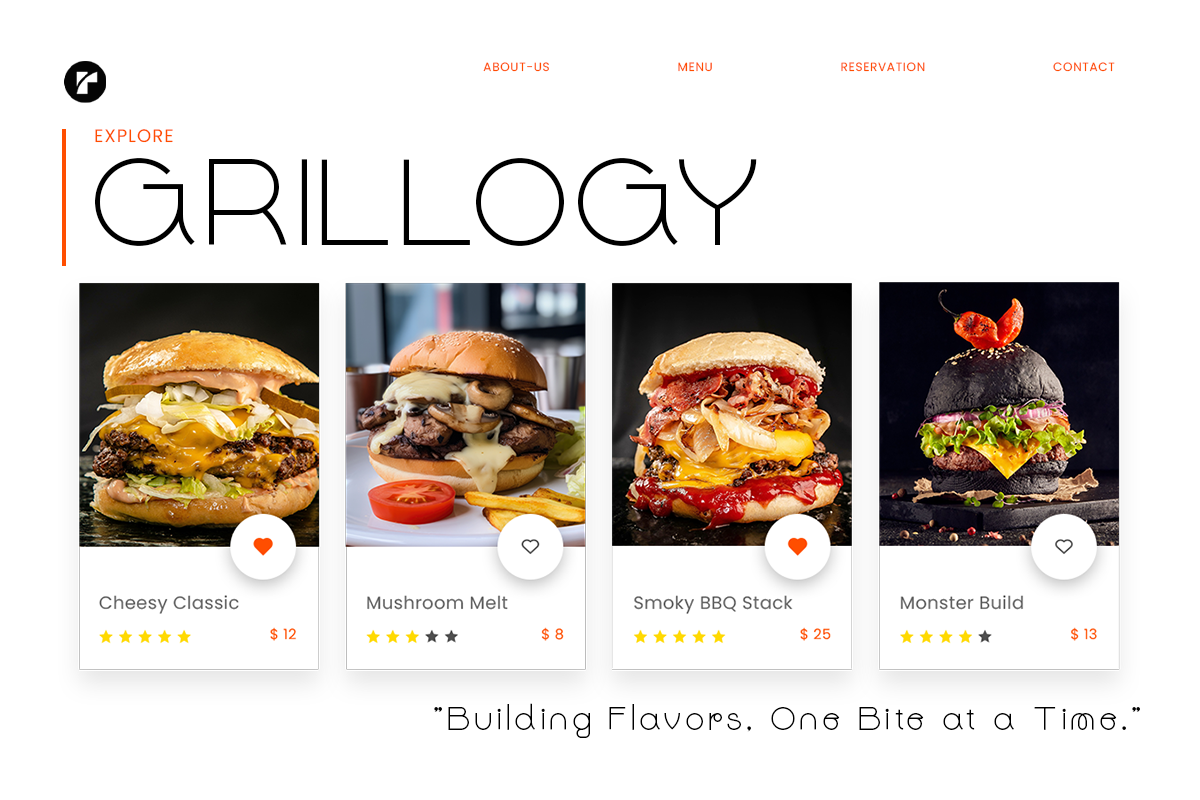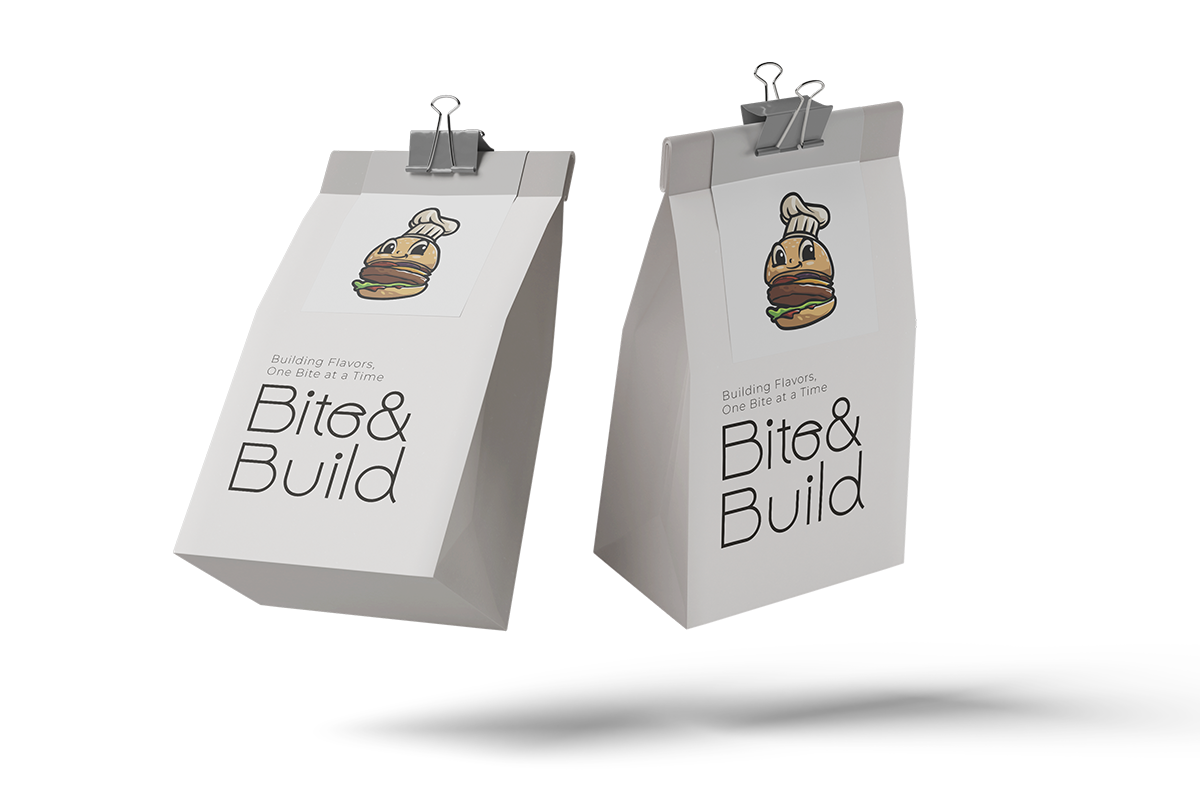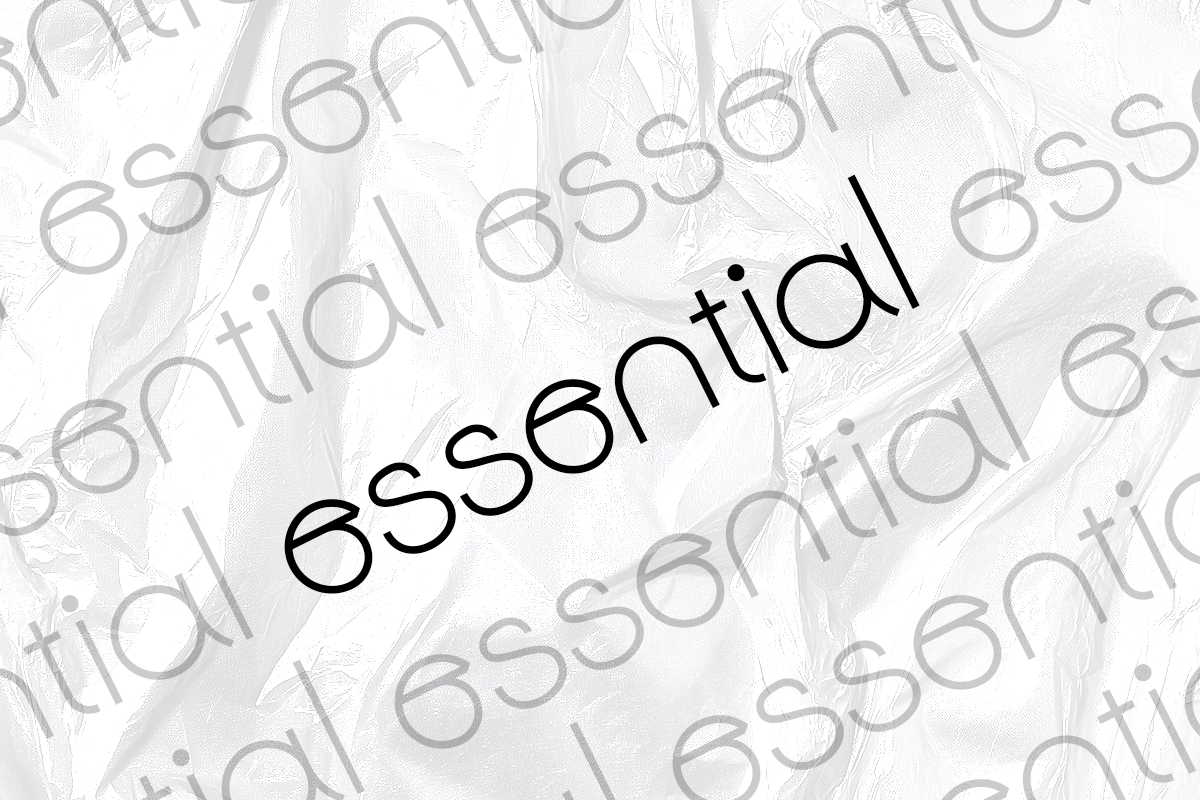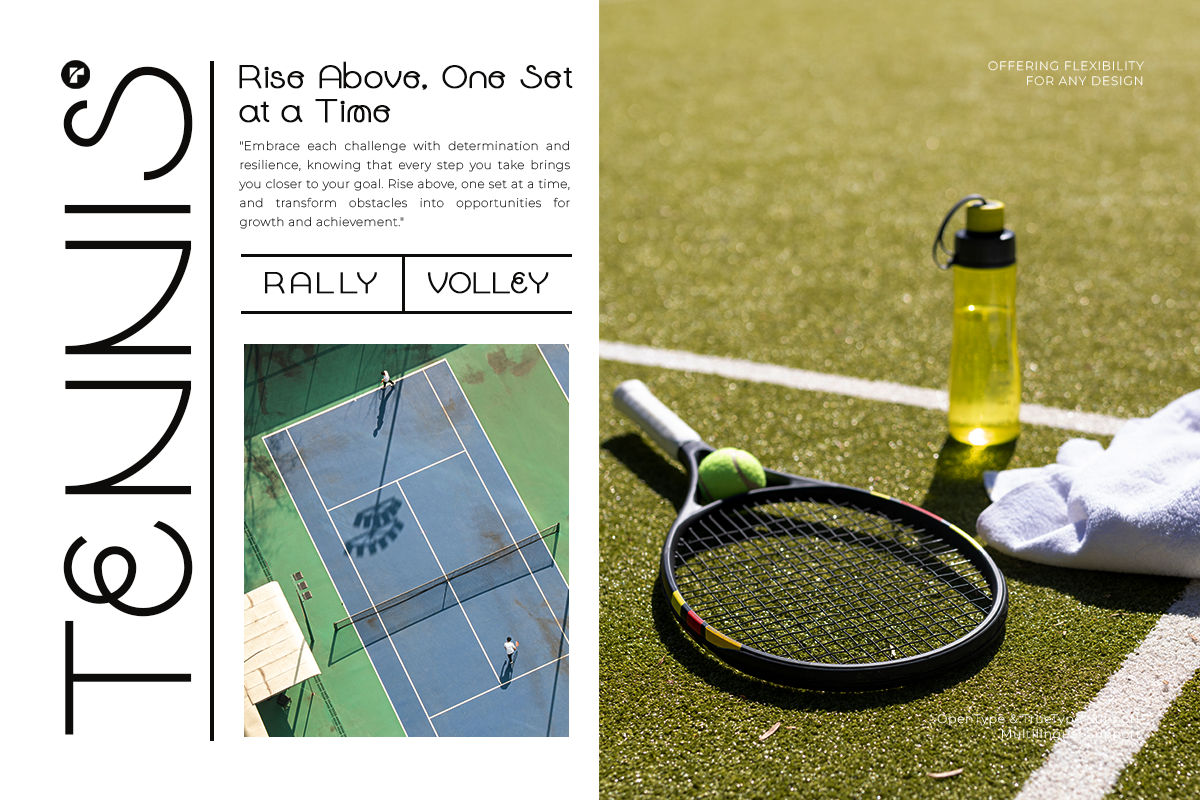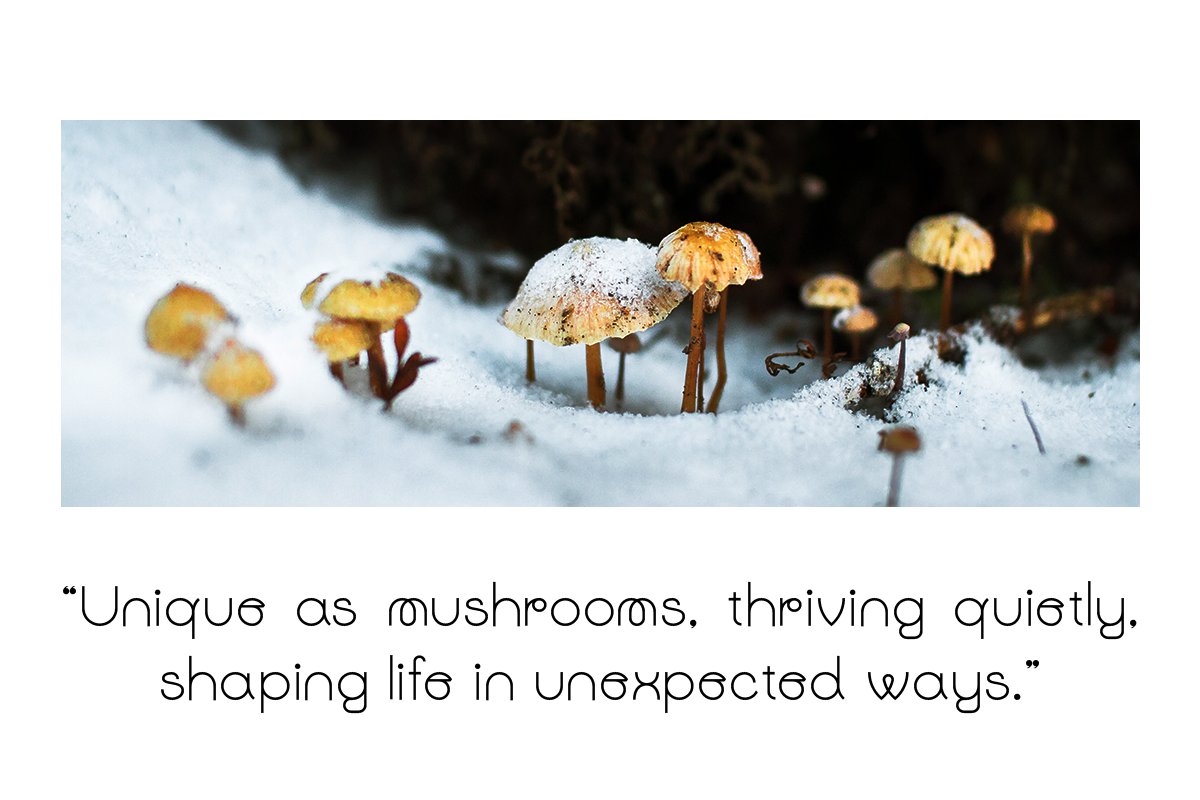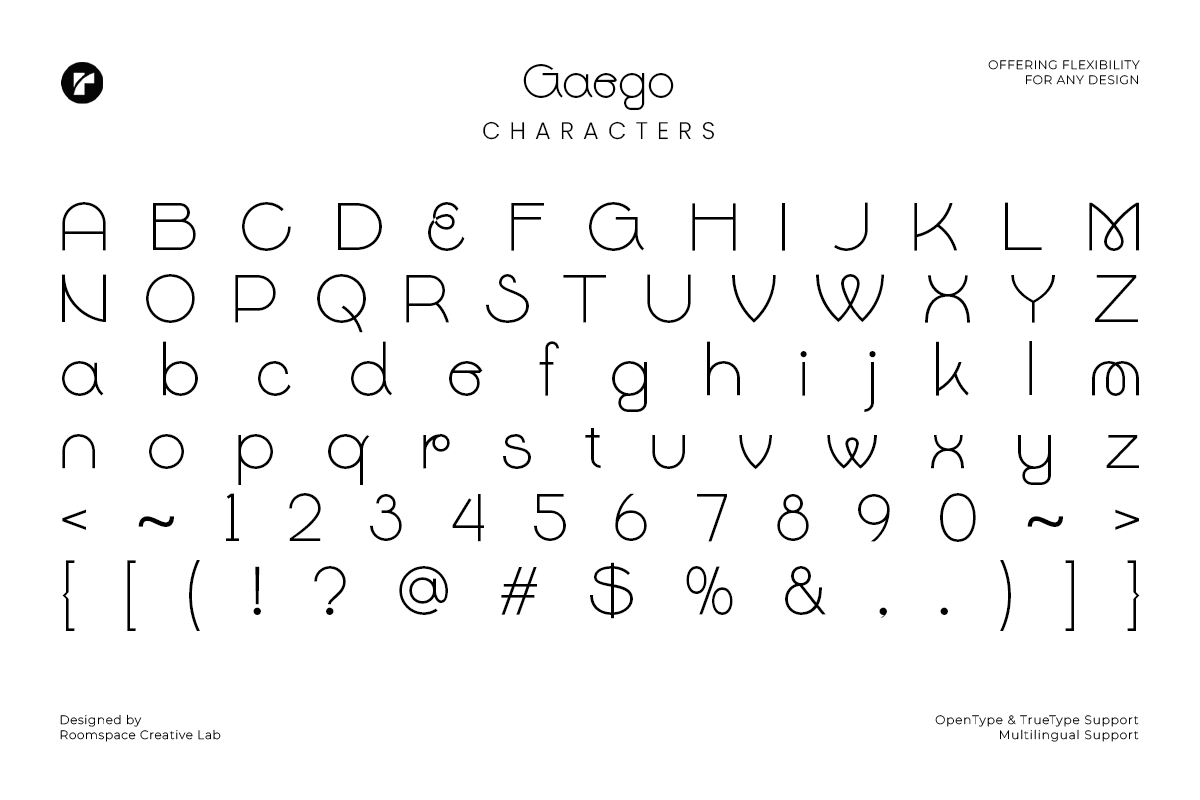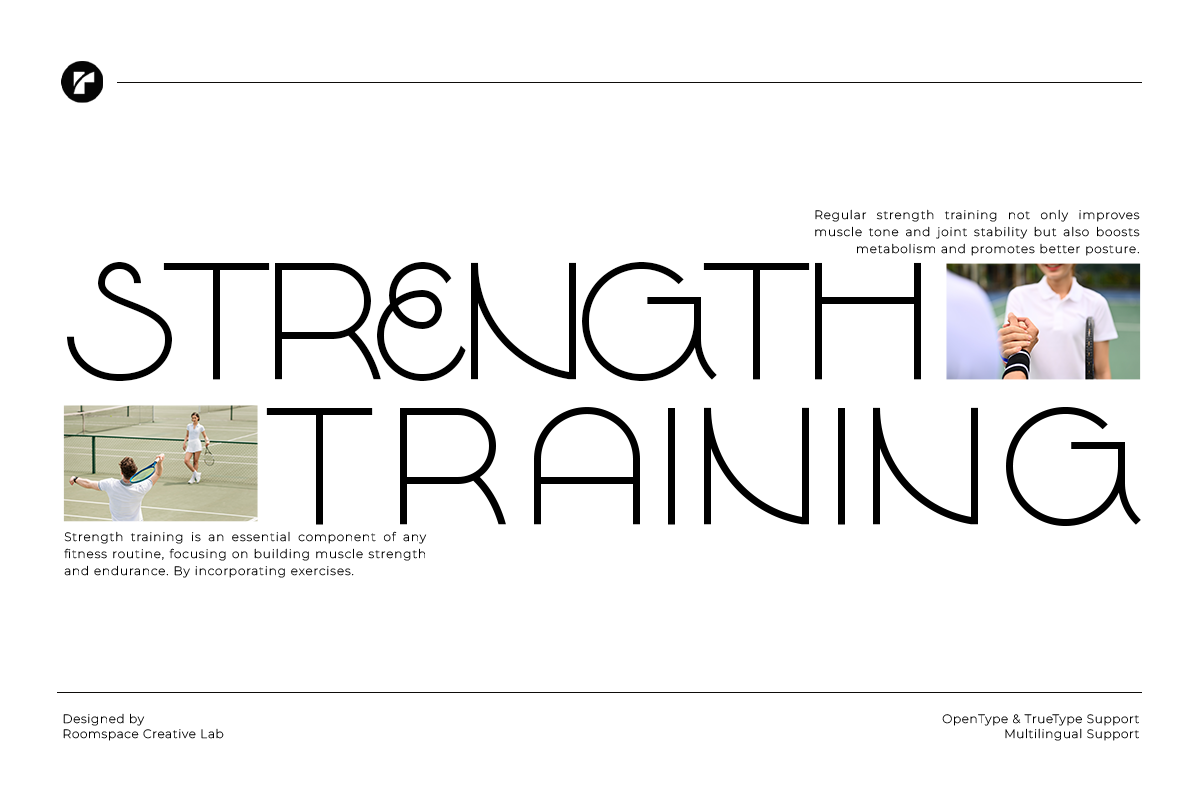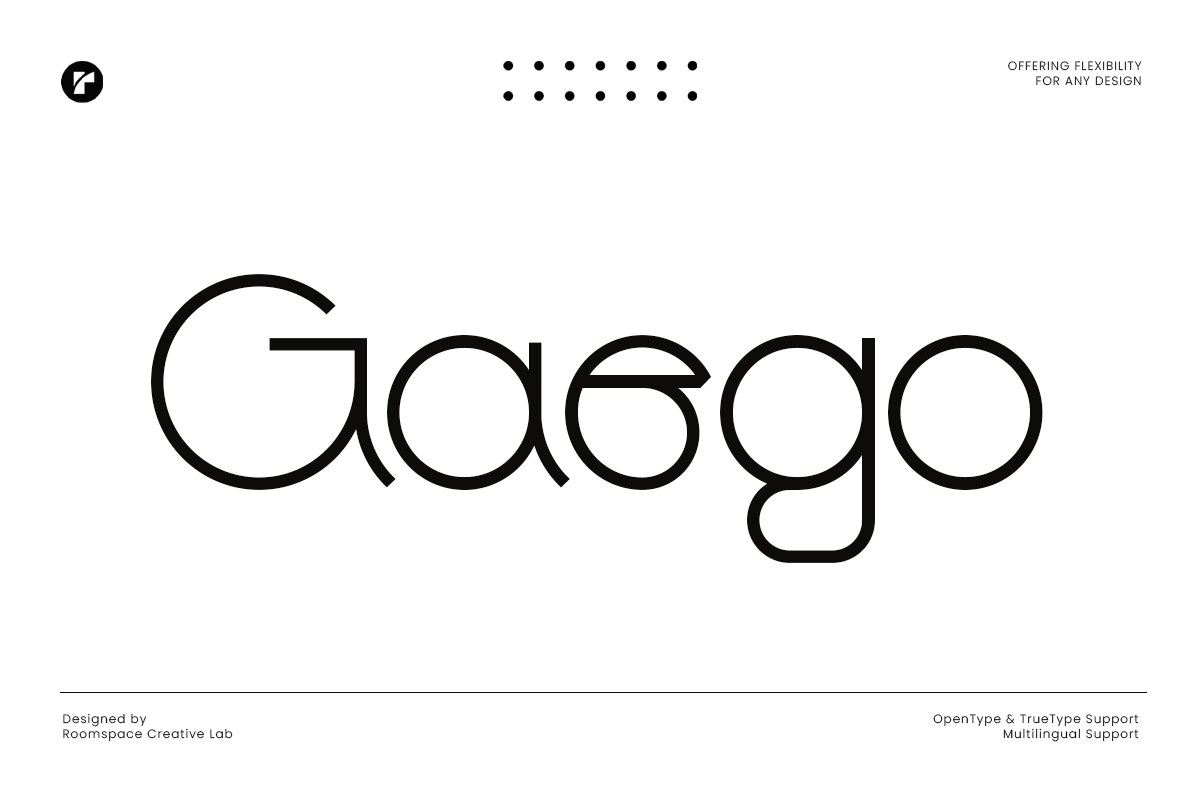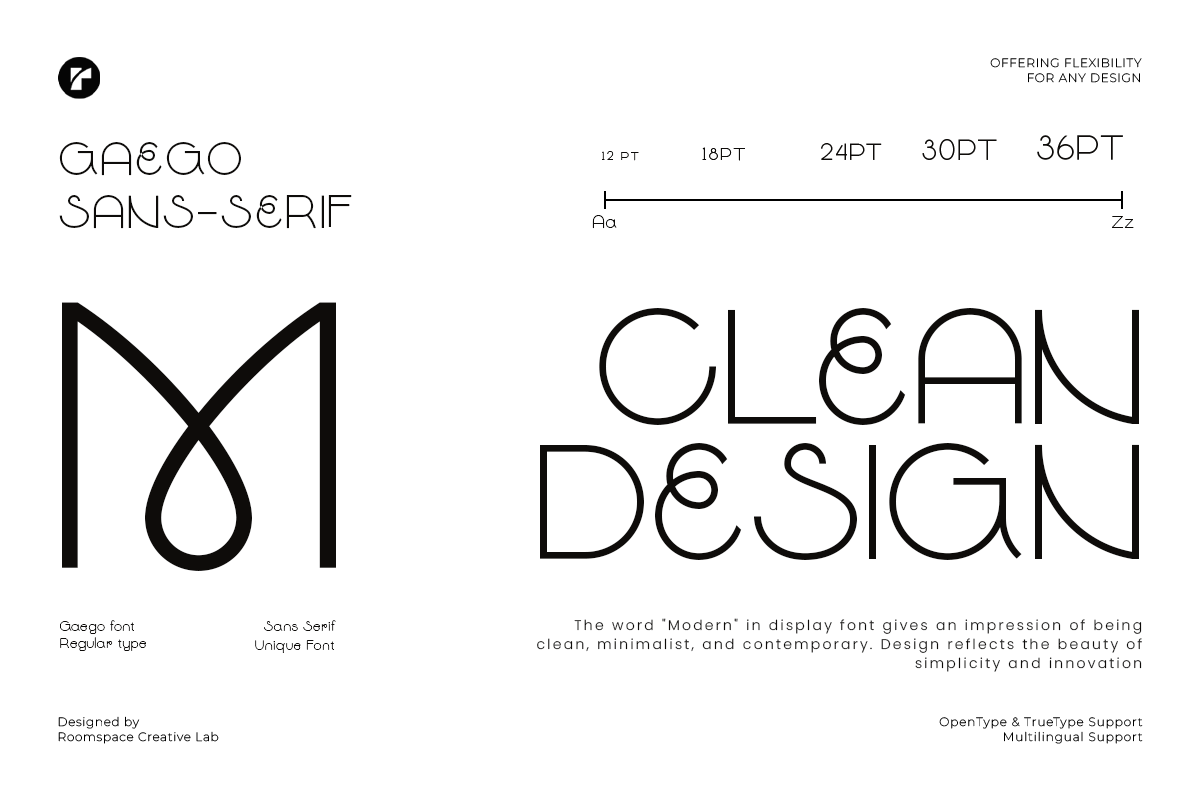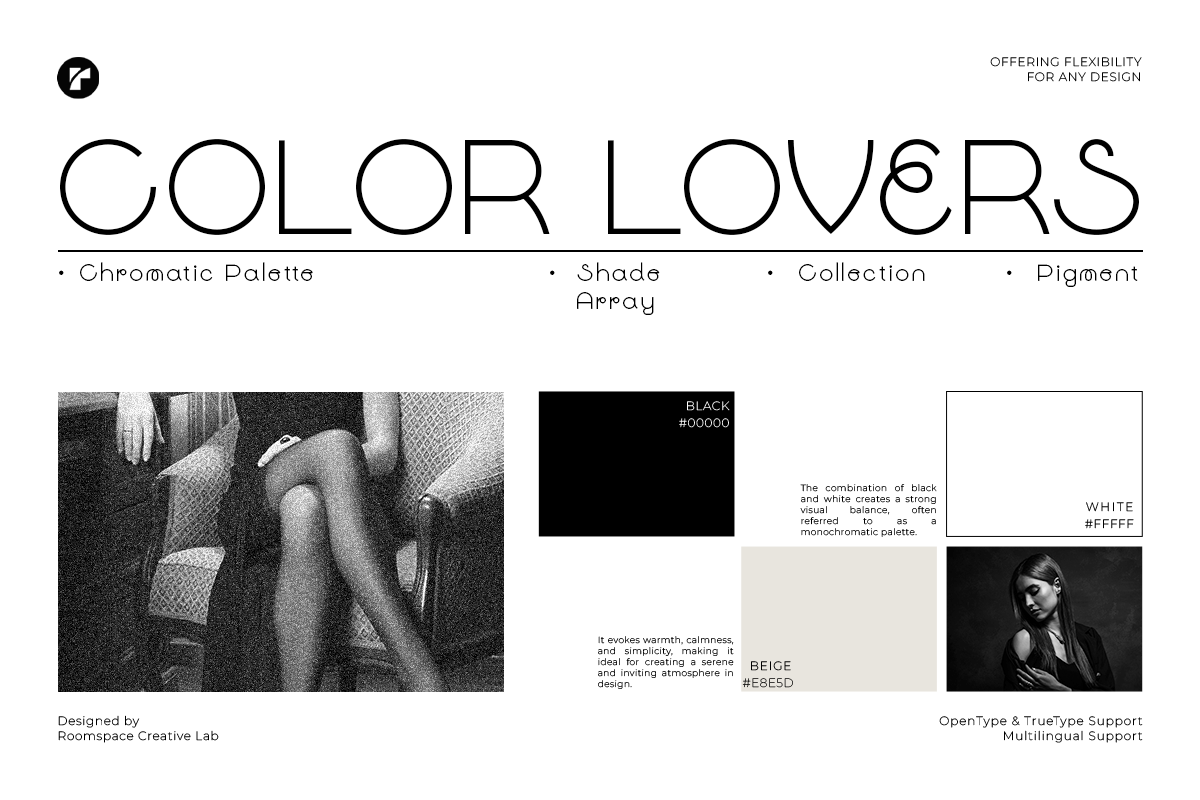
Gaego Font - A Modern and Clean Sans
Gaego Font - A Modern and Clean Sans Serif Typeface
Elevate your designs with Gaego, a modern sans serif font crafted for those seeking a clean and minimalistic typeface. With its geometric sans serif style, Gaego offers the perfect balance of simplicity and uniqueness, making it an ideal choice for branding, logos, and editorial designs.
Designed for versatility, Gaego is a professional font for logos, sleek fonts for web design, and a go-to option for minimalist design projects. Its creative typography ensures readability and visual appeal, whether you're working on modern graphic design fonts or creating polished branding materials.
Unleash your creativity with Gaego Font — the perfect font for minimalist and professional designs.